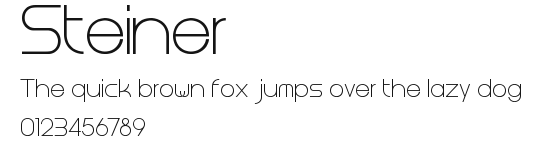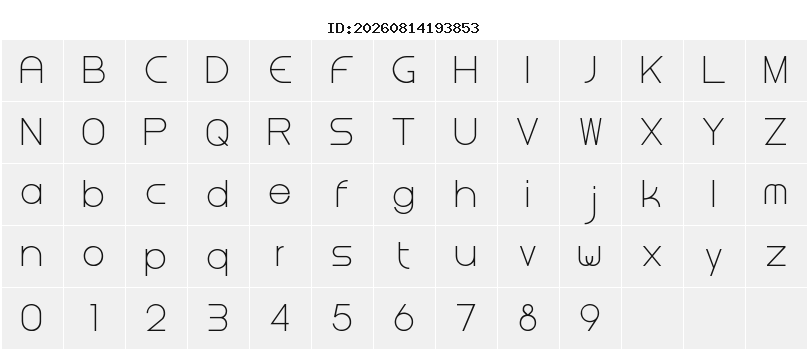
• Font Name: Steiner
• Full Font Name: Steiner Light
• Designer: Gabriele Magurno - http://www.magurno.com
• Description: I've been always fascinated by typography. This is my first attempt to build a TrueType(tm) font: after turning my Photoshop Brushes into a DingBats font in 2004 ("the B.O.M.B.") I've thought to try and make a "serious" typeface. I had in mind a modern, stylish font, ideal for fashion logos and corporate design: hope I've achieved my goal. Concerning the font's name: I wanted to dedicate my efforts to Rudolf Steiner's Anthroposophy.
Steiner.ttf is a modern, elegant sans-serif font designed for ultimate readability and visual harmony. Perfect for branding, headlines, web design, and print materials.